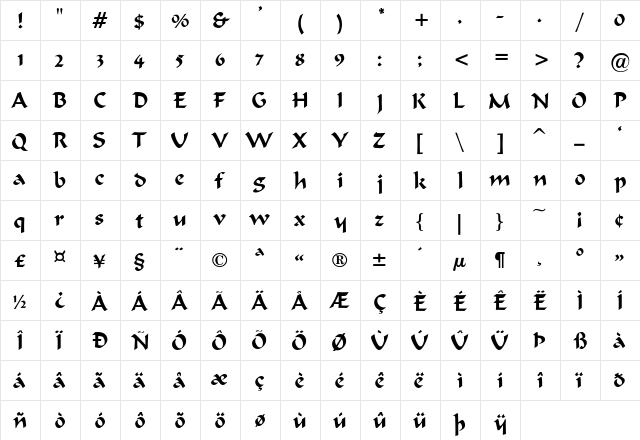
Nome de Plume Regular
Design Context for Nome de Plume Typeface
Nome de Plume is a composed and adaptable typeface that performs quietly and consistently across a wide range of design contexts.